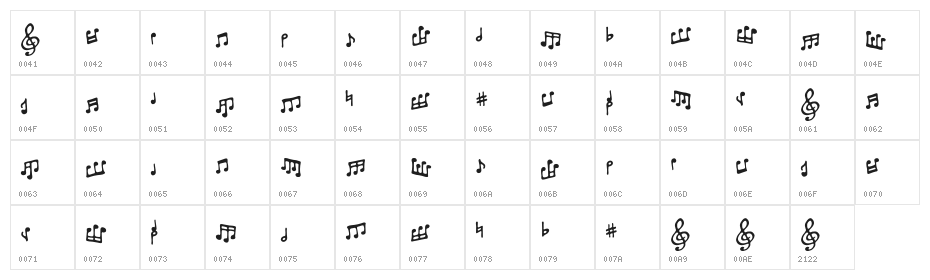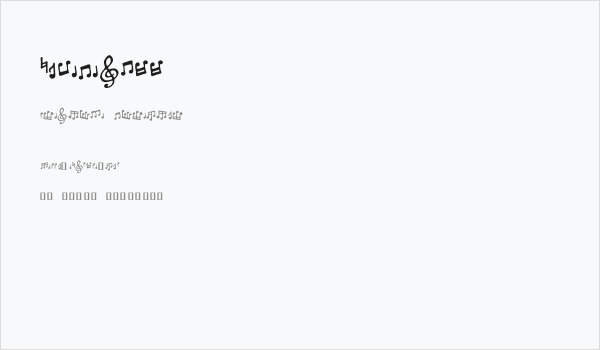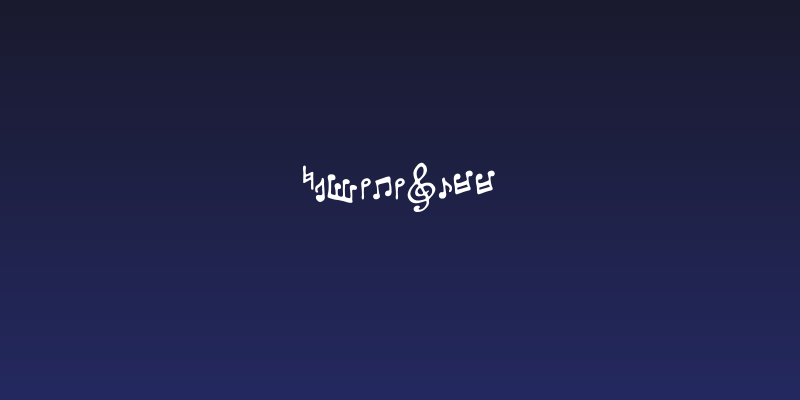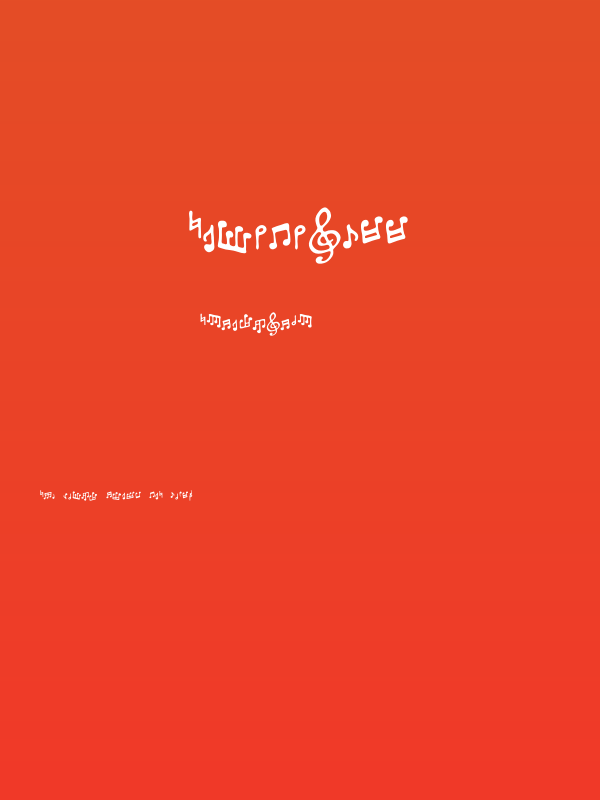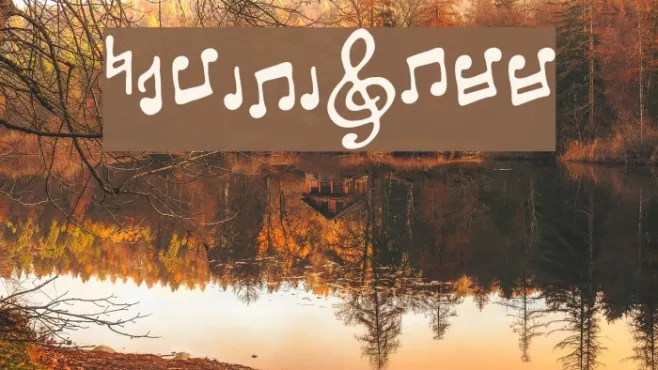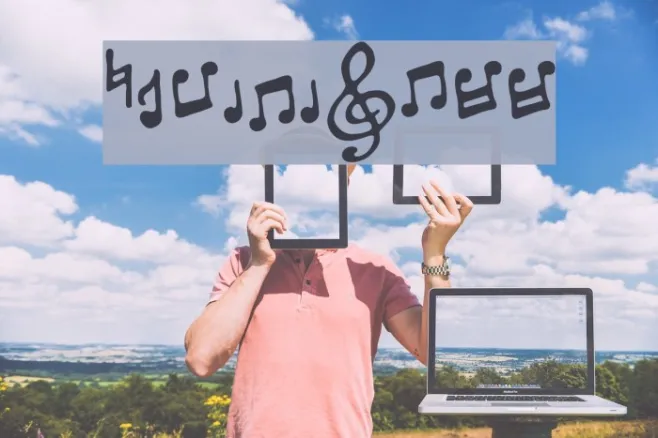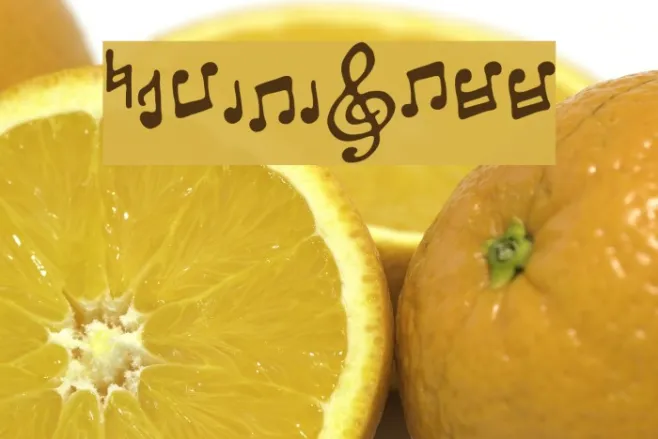
ToneDeafBB Font
ToneDeafBB Description
A playful, decorative font where each character is represented by a stylized musical note or symbol, creating a whimsical and musical visual effect. The glyphs are bold, irregular, and hand-drawn, with varying stroke thickness and a lively, informal appearance.
| Overall Style | Decorative, Playful, Whimsical |
| Use Case | Logos, Headlines, Posters, Themed Graphics |
| Proposed Projects | Music event posters, children's music books, playful branding, themed invitations, educational materials. |